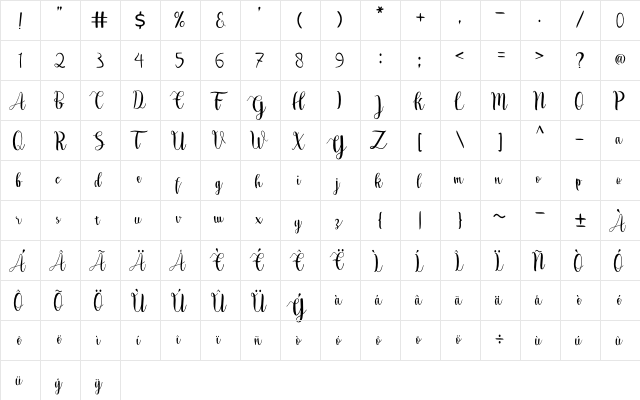
Yellow ganana Regular Font Preview
Yellow ganana Regular
| Designer | hindro cholis |
Design Context for Yellow ganana Typeface
Yellow ganana is a composed and adaptable typeface that performs quietly and consistently across a wide range of design contexts.